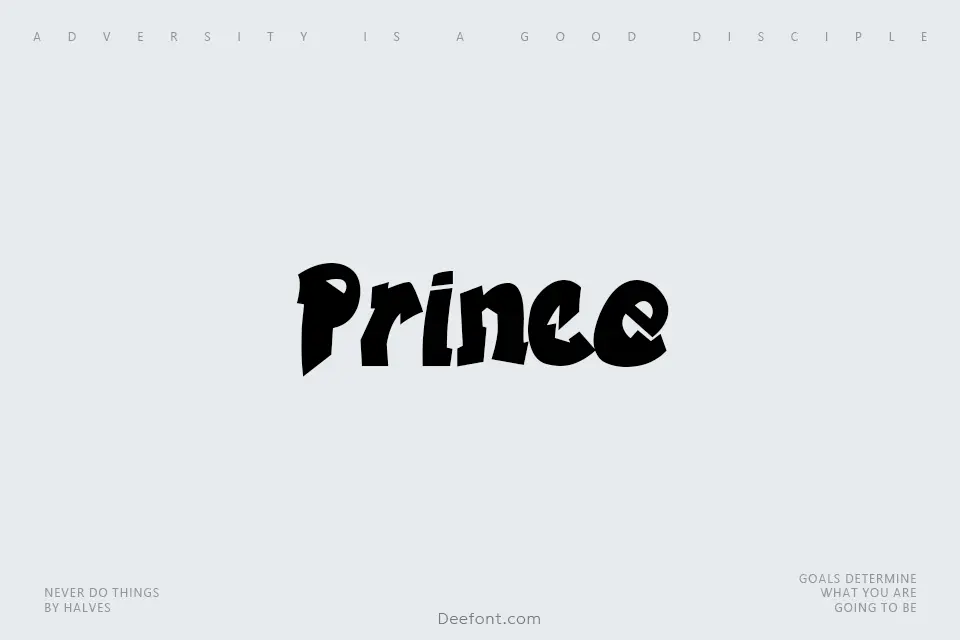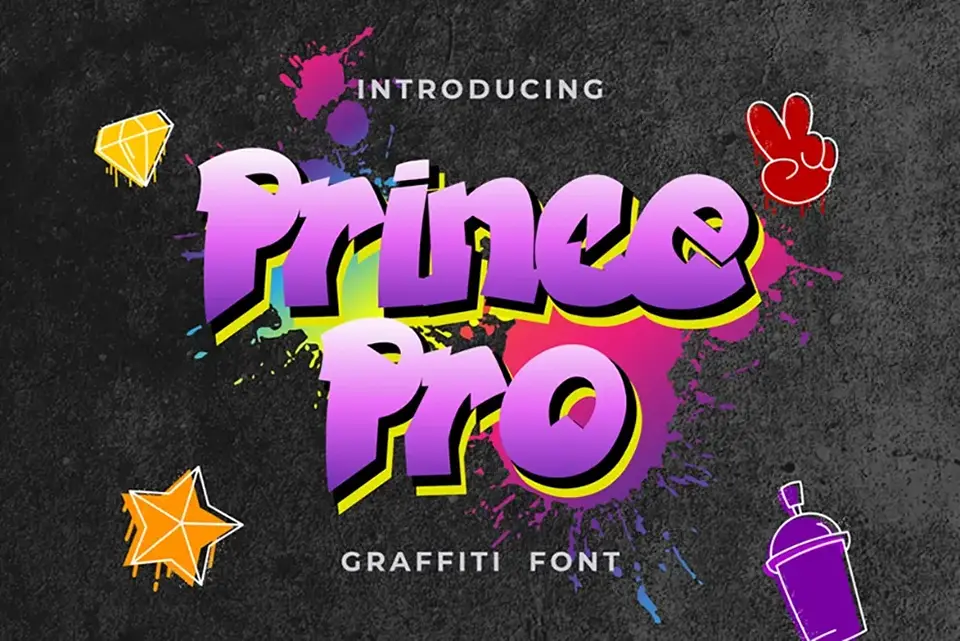
Prince Font
Prince is a captivating graffiti-inspired display font created by FG Studios that features bold, dynamic strokes and angular forms evoking urban energy and raw expressiveness. With its distinct character and unconventional aesthetic, Prince is perfect for attention-grabbing headlines, striking logos, and gritty streetwear-inspired branding. This versatile font elevates packaging, posters, and digital designs by adding an edgy, rebellious flair that commands attention and empowers designers to make bold statements.